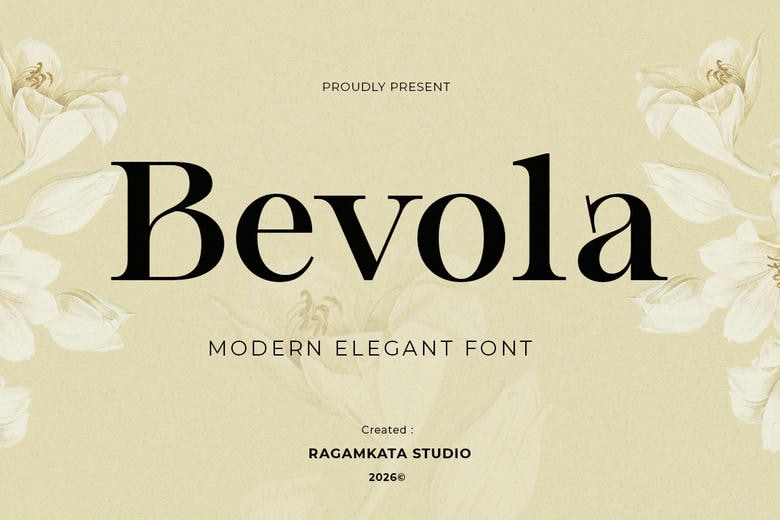
Bevola Font
Bevola is a modern elegant serif typeface, Bevola will provide the beauty of the ages and sophistication of design to the present-day design world. Designed to make the typography special in a gracious manner, Bevola suits designers who wish that their typography should be shining in branding projects, fashion editorials, high-end packaging, magazine designs, beauty products, and high-end logo designs.
Its polished nature avoids make its typography highly legible and yet a high-end appearance in a stylish fashion that upgrades any creative work. Bevola is flexible and stylish in all its letters, whether you are creating the image of a luxurious brand, creating a sleek editorial design, or developing a beautiful invite and a package.
Bevola Serif Font